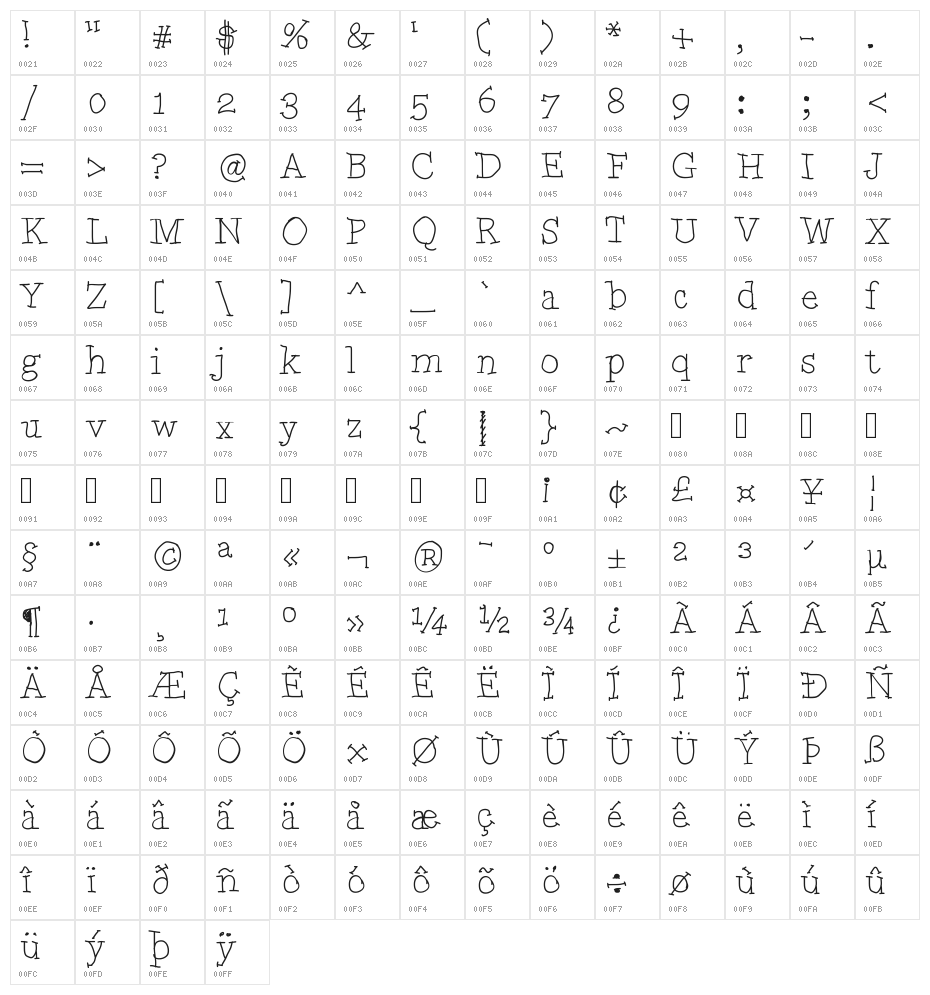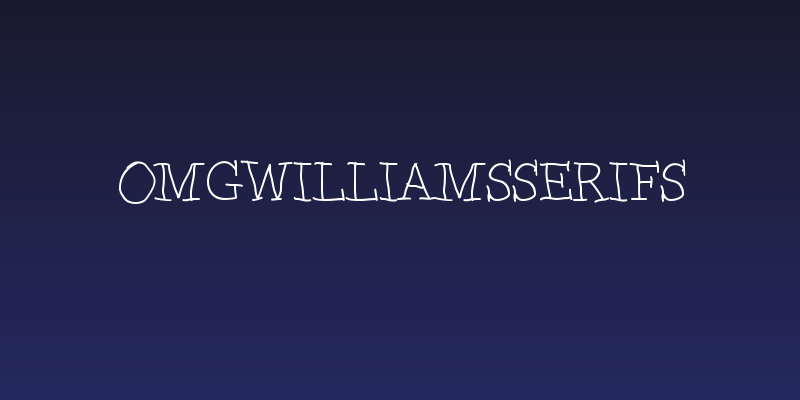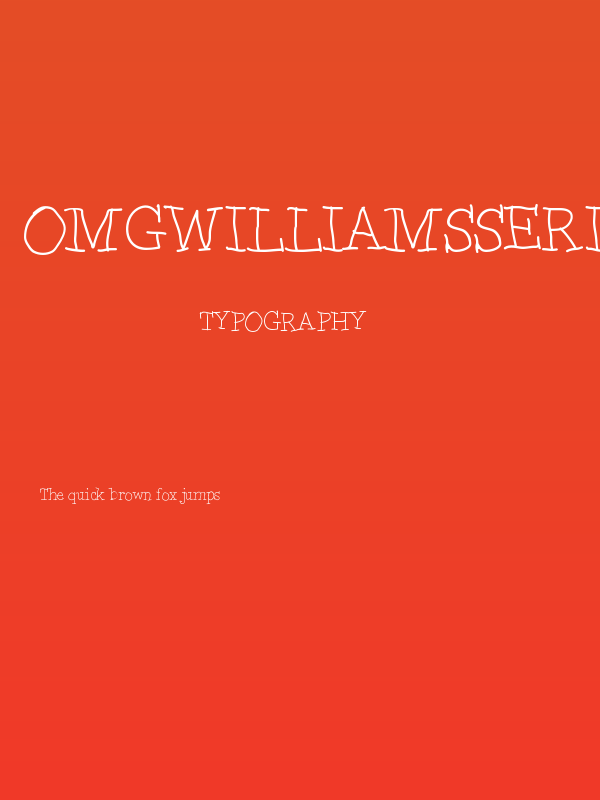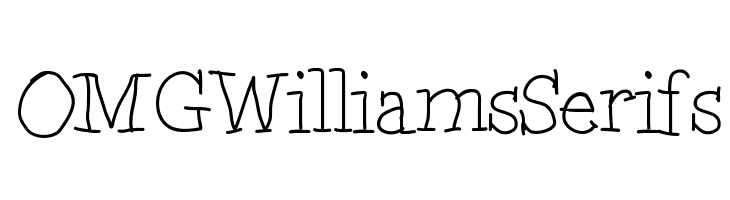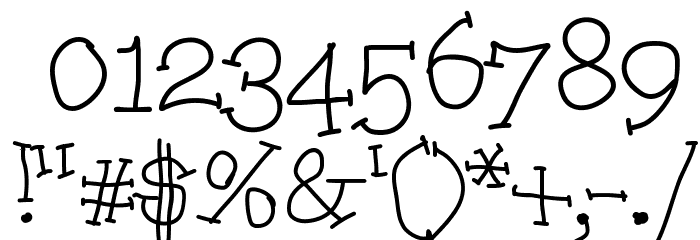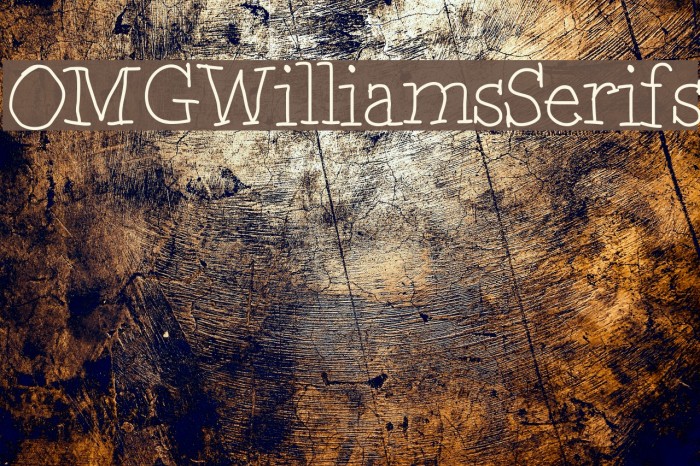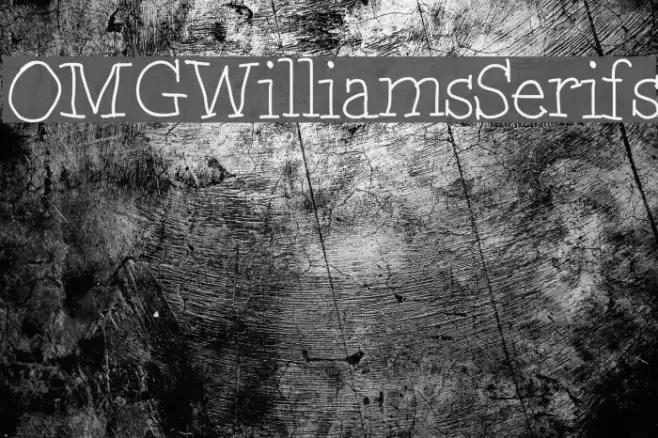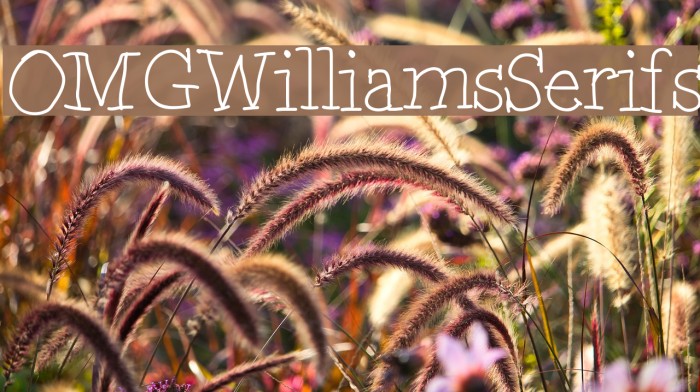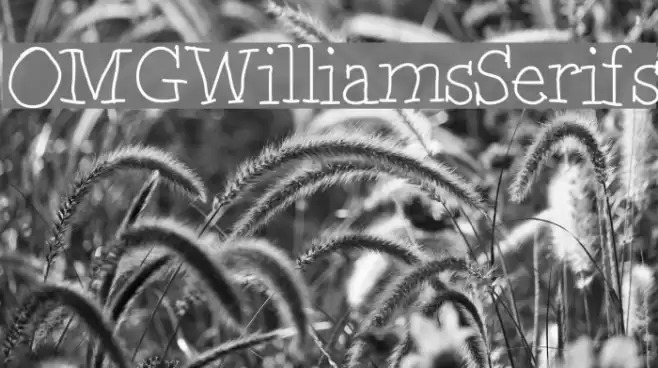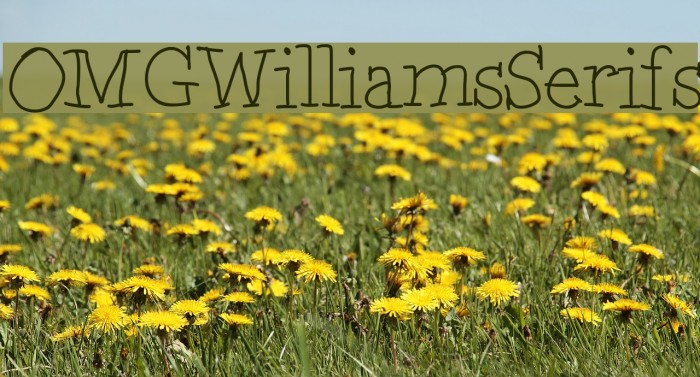
OMGWilliamsSerifs Font
OMGWilliamsSerifs Description
This font features a playful and whimsical design with a hand-drawn aesthetic. The characters are uneven and slightly irregular, giving it a casual and informal feel. The serifs are exaggerated and quirky, adding to the font's unique personality. The uppercase and lowercase letters maintain a consistent style, with the uppercase being slightly taller and more pronounced. Numbers and special characters follow the same playful design, making this font suitable for creative and artistic projects. The overall appearance is both charming and distinctive, perfect for capturing attention.
| Use Case | Headlines, Logos, Creative projects |
| Proposed Projects | Ideal for children's books, playful branding, greeting cards, and creative posters. |